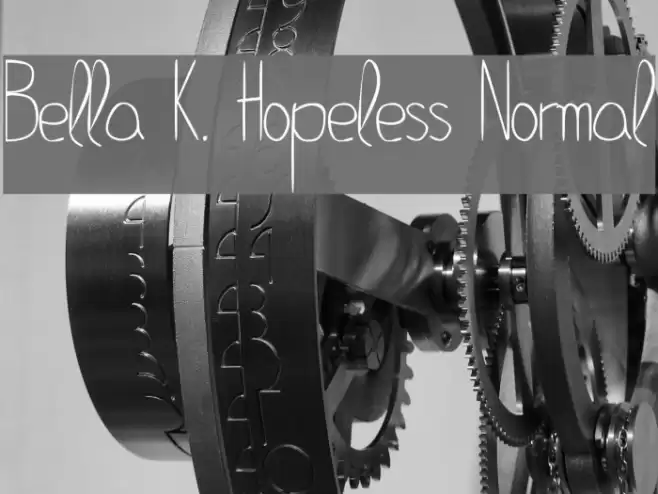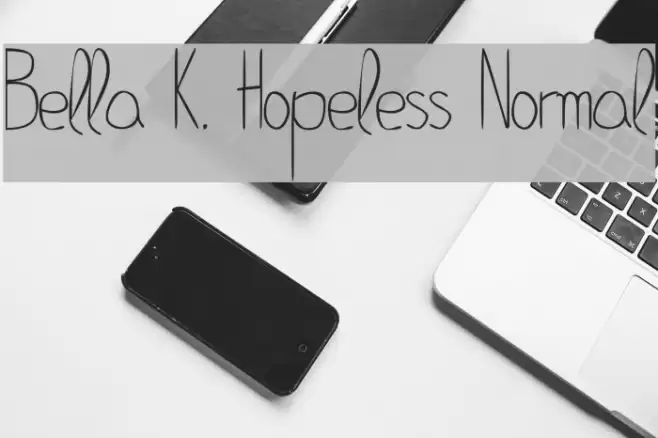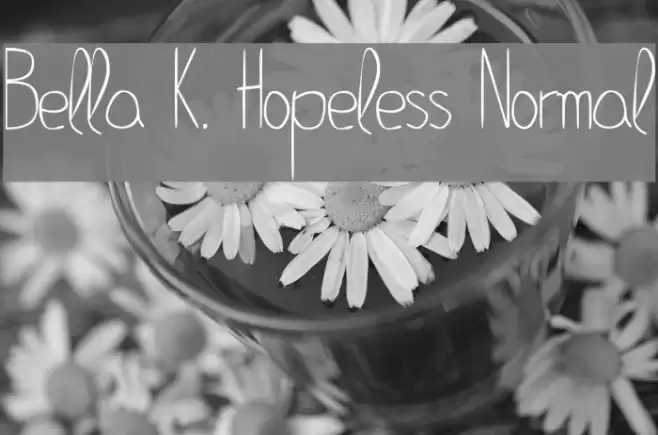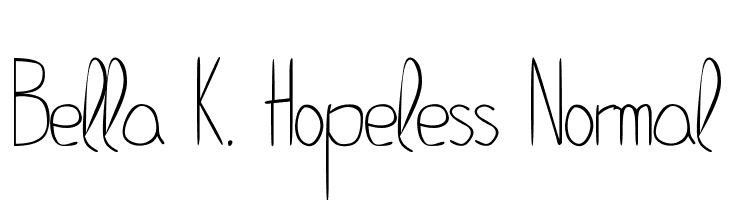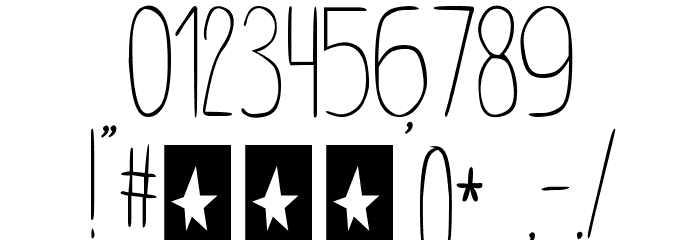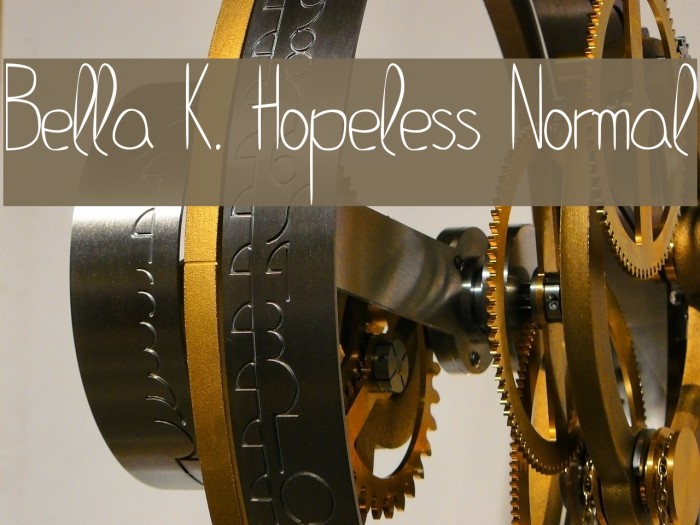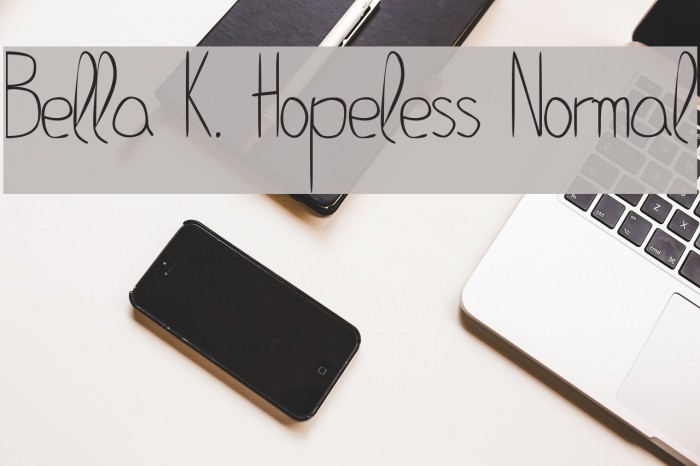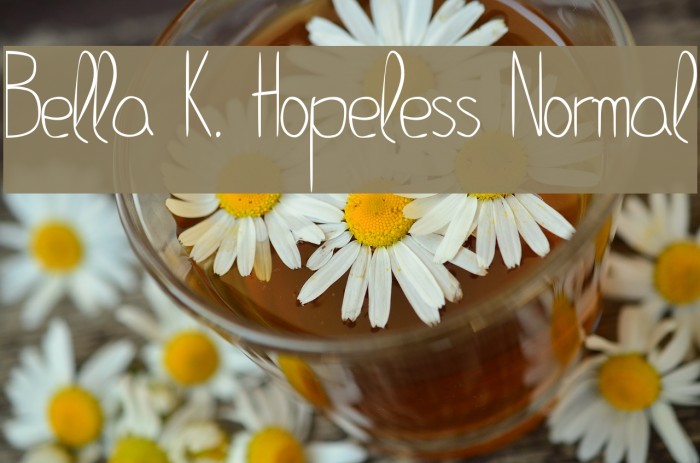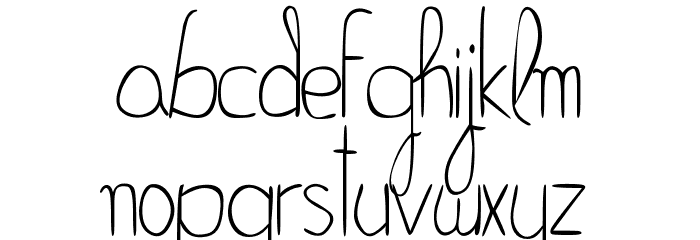
Bella K. Hopeless Normal Font
Bella K. Hopeless Normal Description
This font features a tall, slender design with a whimsical and playful character. The uppercase letters are elongated with a slight curve, giving them a unique and artistic flair. The lowercase letters maintain a consistent style, with some characters like 'g' and 'y' having distinctive loops that add to the font's charm. The numbers are similarly styled, maintaining the tall and narrow aesthetic. Special characters are creatively designed, fitting seamlessly with the overall look. This font's thin strokes and elegant curves make it suitable for projects that require a touch of creativity and elegance.
A tall, slender, and whimsical font with artistic flair from Uncategorized fonts.
- Proposed Projects: Ideal for creative projects such as invitations, greeting cards, and artistic branding.
- Overall Style: Whimsical and Artistic
- Use Case: Headlines, Artistic Branding, Invitations